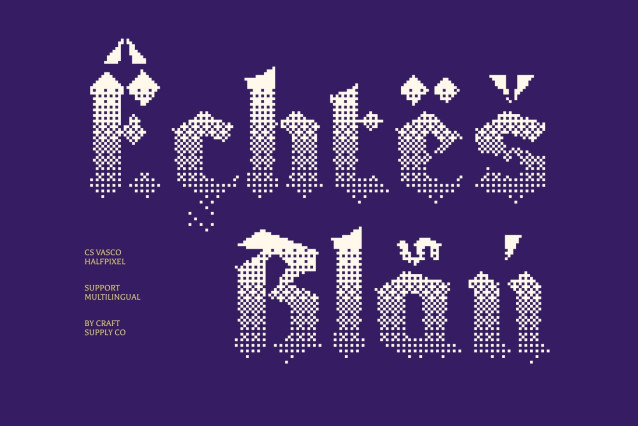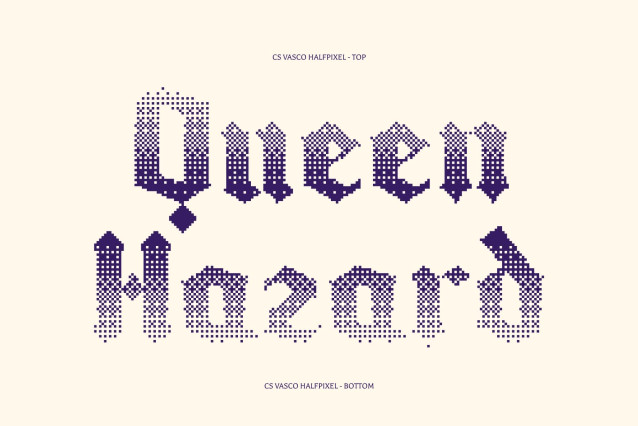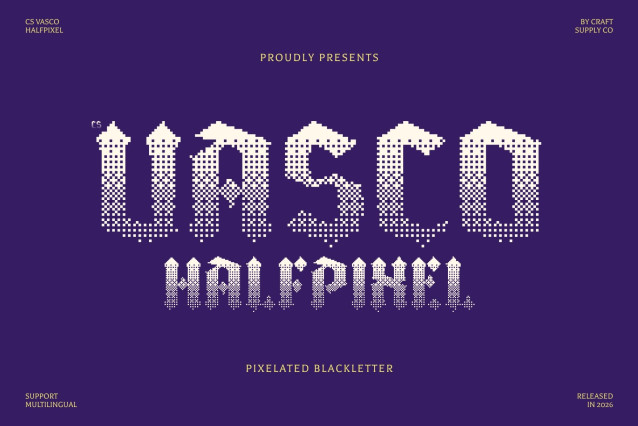
CS Vasco Halfpixel – Classic Blackletter Display Font
A Timeless Expression of Tradition
This is a striking blackletter display typeface inspired by the elegance of historic manuscripts. Its sharp letterforms, prominent angles, and bold strokes create a dramatic and authoritative presence, perfect for designs that aim to convey heritage and timeless sophistication.
Distinctive Blackletter Character
Rooted in the rich tradition of medieval typography, this font features thick strokes and angular forms that embody the artistry of classic blackletter style. Each character is carefully crafted to deliver strong visual impact while maintaining clear readability.